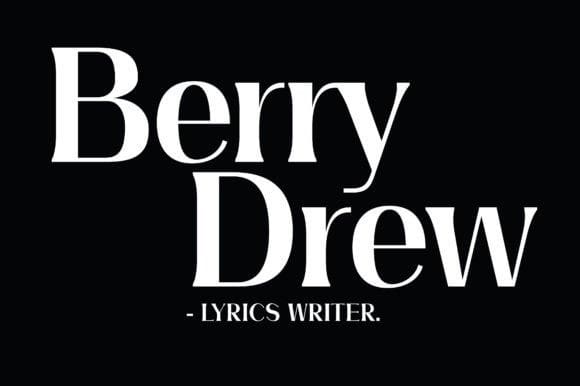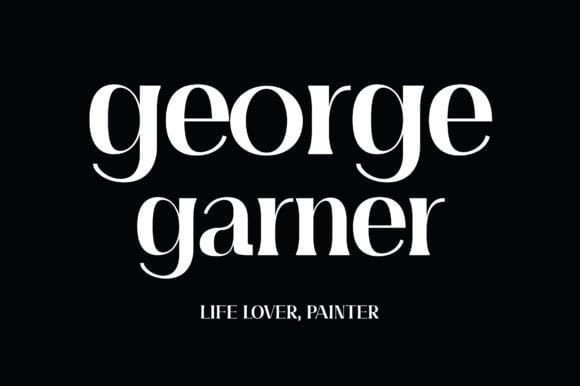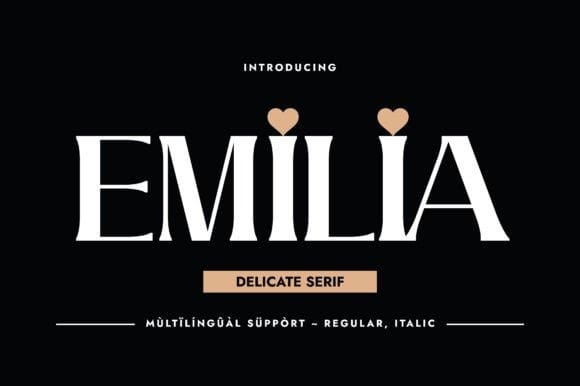
Emilia Typeface
Emilia Typeface is a wonderful, delicate, and very well-studied serif typeface. The font was created thinking only one thing ”delicacy”. For that reason, the font holds an Italian female name ”Emilia”. The glyphs curves are smooth and the exterior is sharp, the thing that grabs the attention and makes it easily become an ”eye catchy” font. Use it in your favorite project and notice how much power it holds inside.